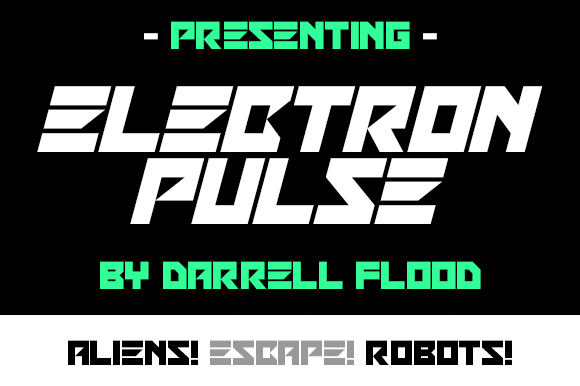
Introducing Electron Pulse Font: The Ultimate Choice for Modern Designs
In the world of typography, fonts play a crucial role in conveying the tone and aesthetic of a design. For designers and crafters looking to add a touch of futurism and edginess to their projects, Electron Pulse Font is the perfect choice. This angular, high-tech font is designed to evoke a sense of space adventures, science themes, and modernity.
What is Electron Pulse Font?
Electron Pulse Font is a unique and cutting-edge typeface that embodies the spirit of innovation and technology. Its sleek, angular lines and futuristic style make it an ideal choice for designs that require a bold and modern look. Whether you’re working on a project related to space exploration, science fiction, or simply want to add a touch of futurism to your design, Electron Pulse Font is the perfect fit.
Key Features of Electron Pulse Font
- Angular and Edgy Design: Electron Pulse Font boasts a distinctive angular design that gives it a sharp, high-tech look.
- Futuristic Style: The font’s futuristic style makes it perfect for designs that require a sense of innovation and modernity.
- High-Tech Aesthetic: The font’s high-tech aesthetic makes it suitable for a wide range of applications, from science themes to space adventures.
- Modern and Bold: Electron Pulse Font is a bold and modern font that adds a touch of sophistication to any design.
Use Cases for Electron Pulse Font
Electron Pulse Font is a versatile typeface that can be used in a variety of design projects, including:
- Space Adventures and Science Fiction: The font’s futuristic style and angular design make it perfect for projects related to space exploration and science fiction.
- Science Themes and Technology: Electron Pulse Font is ideal for designs related to science, technology, engineering, and mathematics (STEM).
- Modern Logos and Branding: The font’s bold and modern look makes it suitable for logos and branding projects that require a touch of futurism.
- Posters and Flyers: Electron Pulse Font can add a touch of edginess and sophistication to posters and flyers.
Benefits of Using Electron Pulse Font
By using Electron Pulse Font in your design projects, you can:
- Add a Touch of Futurism: The font’s futuristic style and angular design can add a touch of innovation and modernity to your designs.
- Stand Out from the Crowd: Electron Pulse Font is a unique and distinctive typeface that can help your designs stand out from the crowd.
- Enhance Your Brand’s Image: The font’s bold and modern look can enhance your brand’s image and convey a sense of sophistication and innovation.
Tips for Using Electron Pulse Font
To get the most out of Electron Pulse Font, follow these tips:
- Use it Boldly: Electron Pulse Font is a bold and modern font, so use it boldly to make a statement.
- Experiment with Colors: The font’s futuristic style and angular design make it perfect for experimenting with bright and bold colors.
- Pair it with Simple Backgrounds: Electron Pulse Font can be paired with simple backgrounds to create a striking contrast.
Electron Pulse Font is a unique and cutting-edge typeface that is perfect for designers and crafters looking to add a touch of futurism and edginess to their projects. Its angular, high-tech design and futuristic style make it suitable for a wide range of applications, from space adventures and science themes to modern logos and branding. By using Electron Pulse Font, you can add a touch of innovation and modernity to your designs and stand out from the crowd.